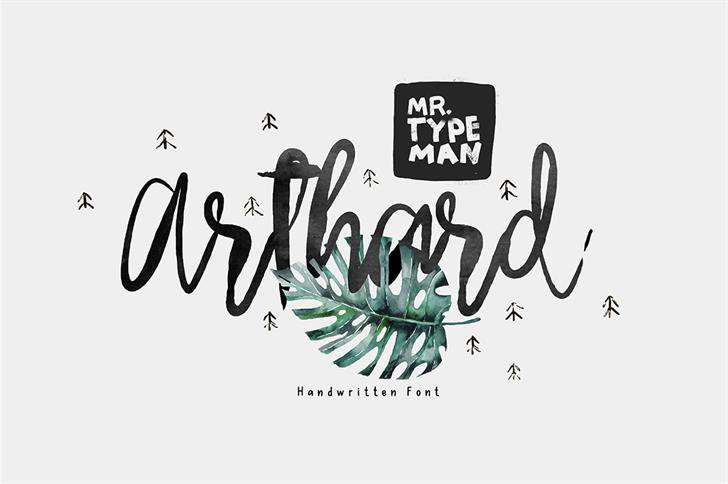
Arthard Script Font
lntroducing Arthard Script Font! Arthard Script designed and shared by Mr.Typeman. Take a look on those grunge characters which will add charisma to any of your designs! Arthard comes with upper and lowercase characters, basic punctuation, numbers and special glyphs, so the font can be used with most of the European languages.